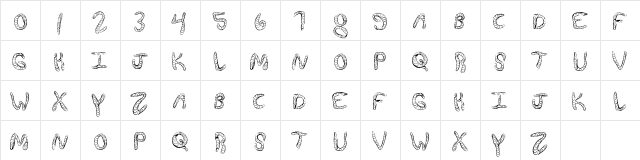
WurmFun Regular
| Foundry | Xerographer Fonts |
| Designer | Max Infeld |
Design Context for WurmFun Typeface
WurmFun has an approachable, lighthearted character — its loose, expressive forms are well-suited to children's content, casual branding, and fun-first design.
Font Pairing: Pairs well with a rounded or humanist sans for body copy, maintaining the friendly tone without relying on WurmFun to carry extended reading.
Pro Tip: Use WurmFun at larger display sizes where its expressive character can land. Pair with a clean, simple sans for body copy to maintain readability.